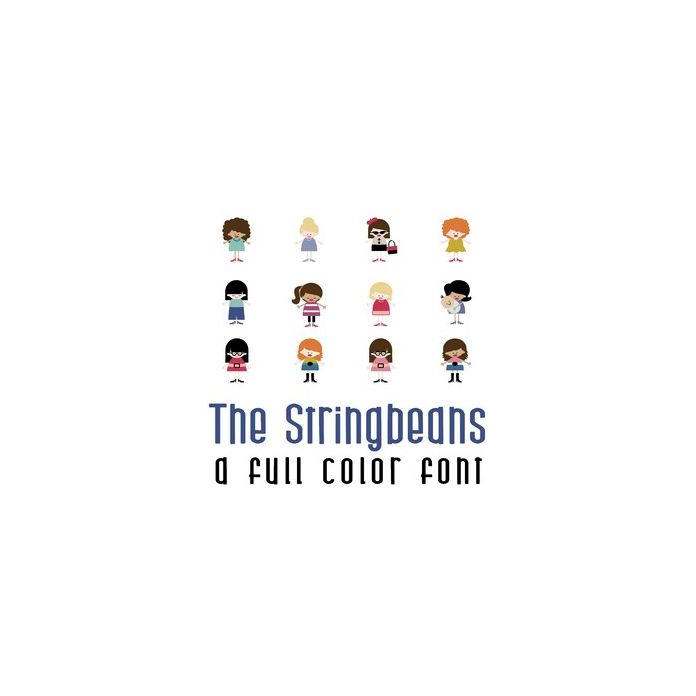
This adorable full-color doodlebat font features 52 full color Stingbeans family members. Perfect for cards, crafts, gifts, decor, scrapbook pages, planner stickers, and more!